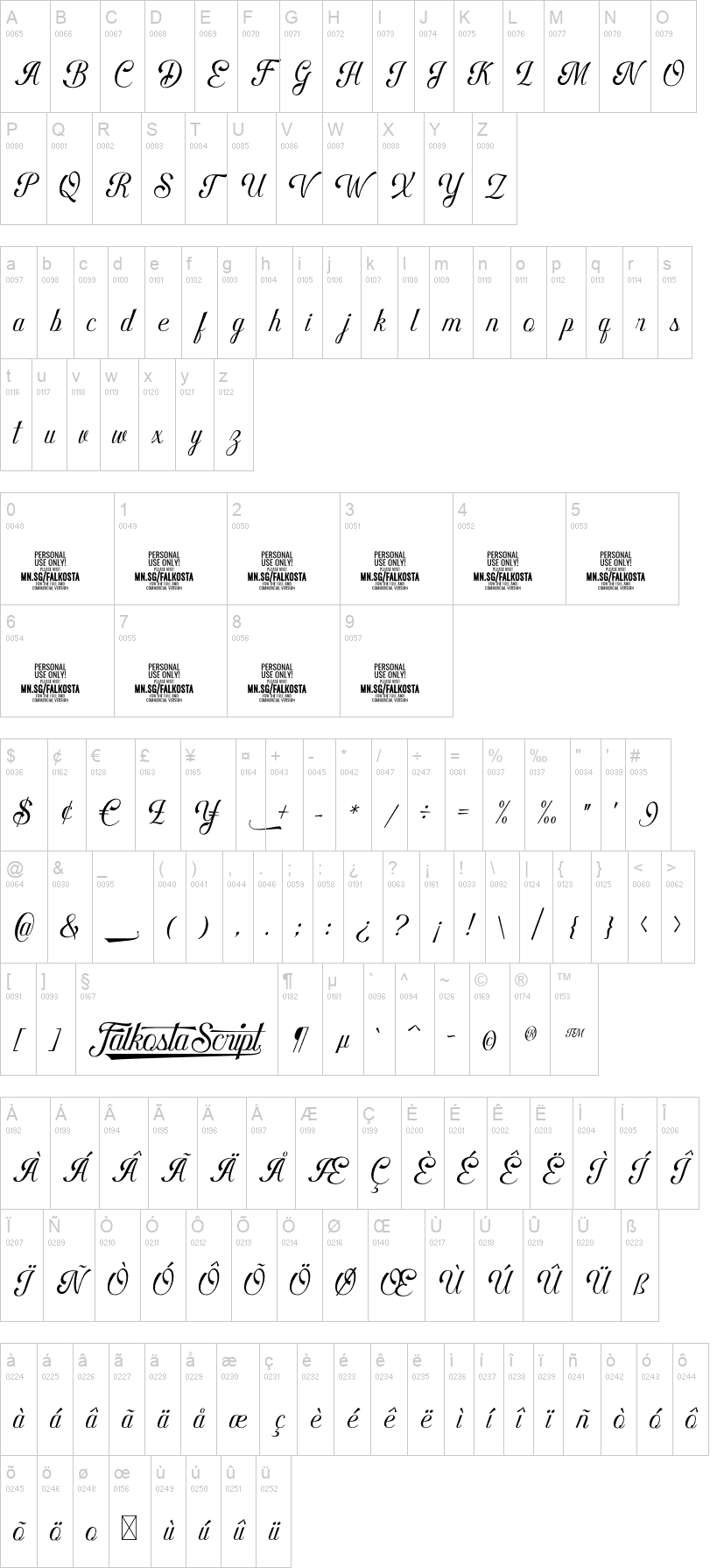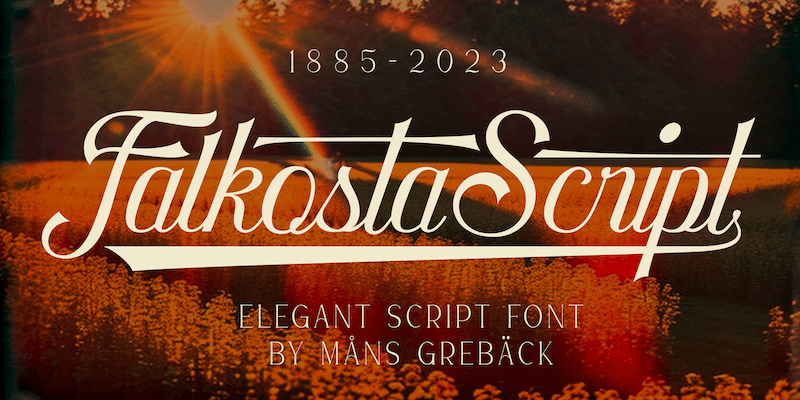
Use underscore _ anywhere in a word to make a swash under the word.
Example: Love_
Write # or ¤ after any letter to make a swash version.
Example: Me# & You¤
Use multiple underscores for longer swashes.
Example: Superman_______